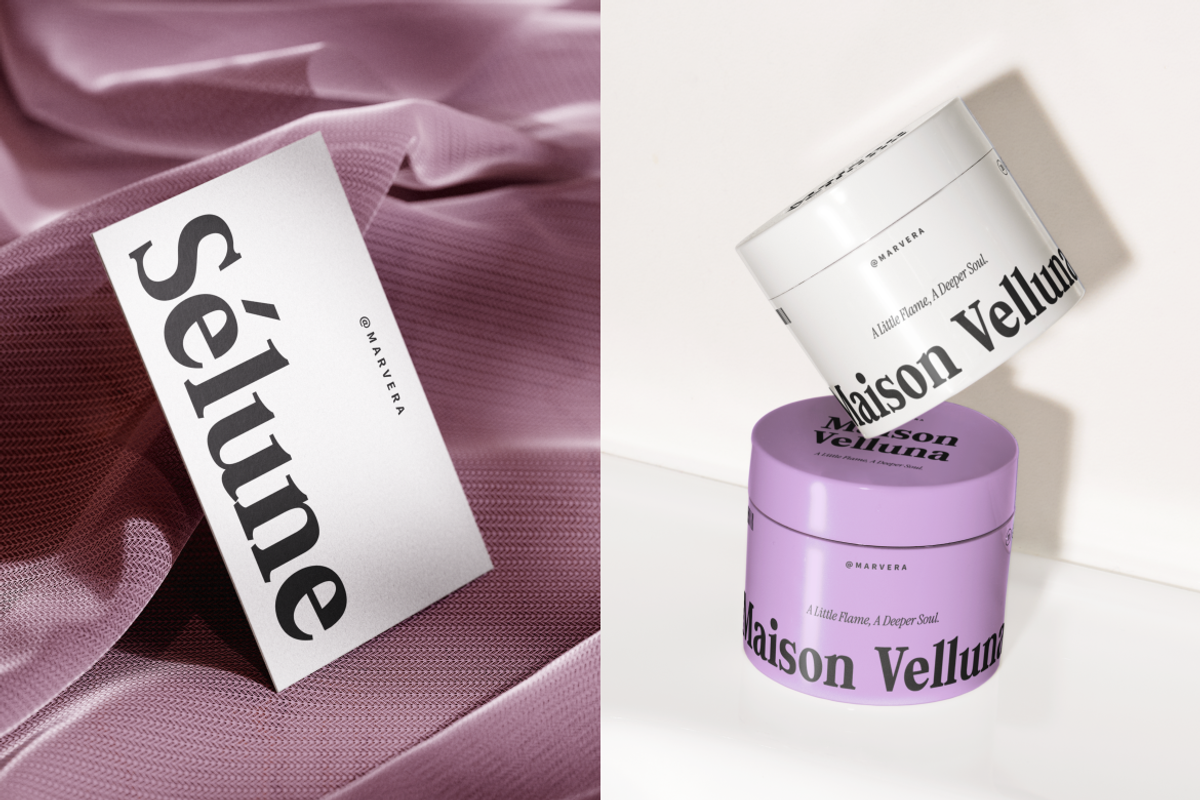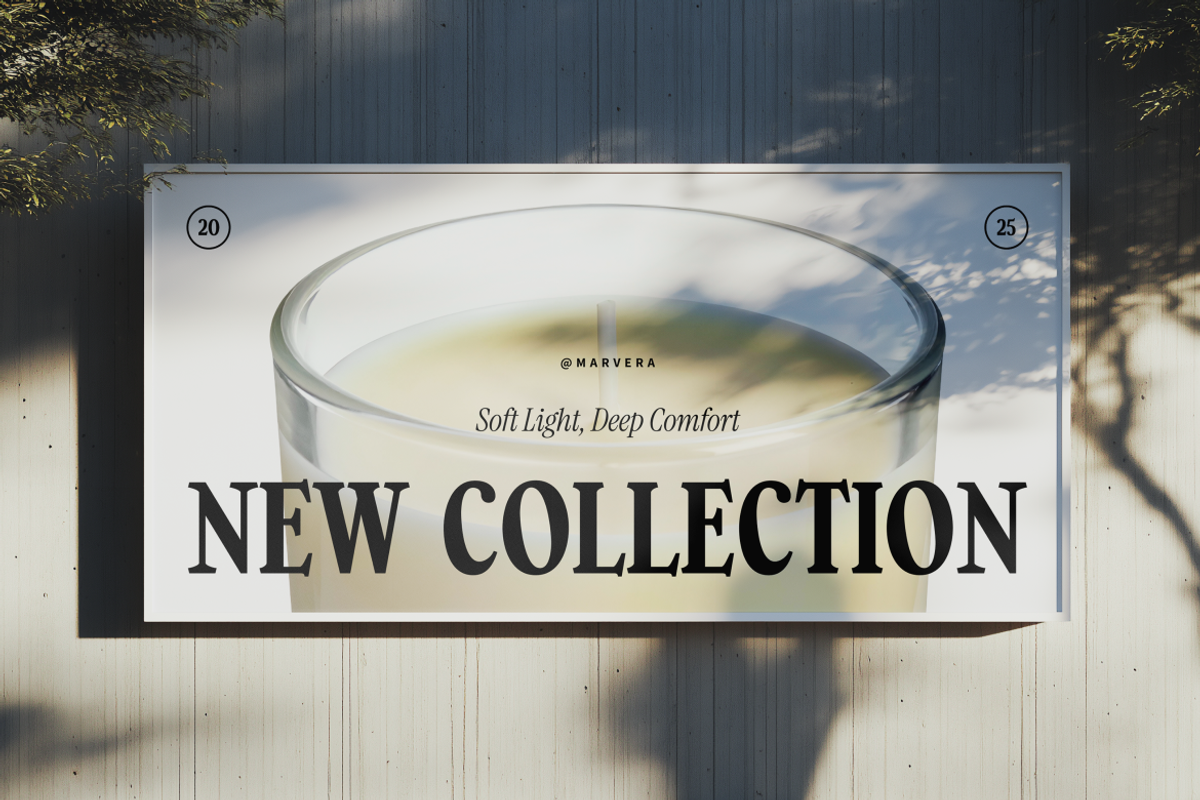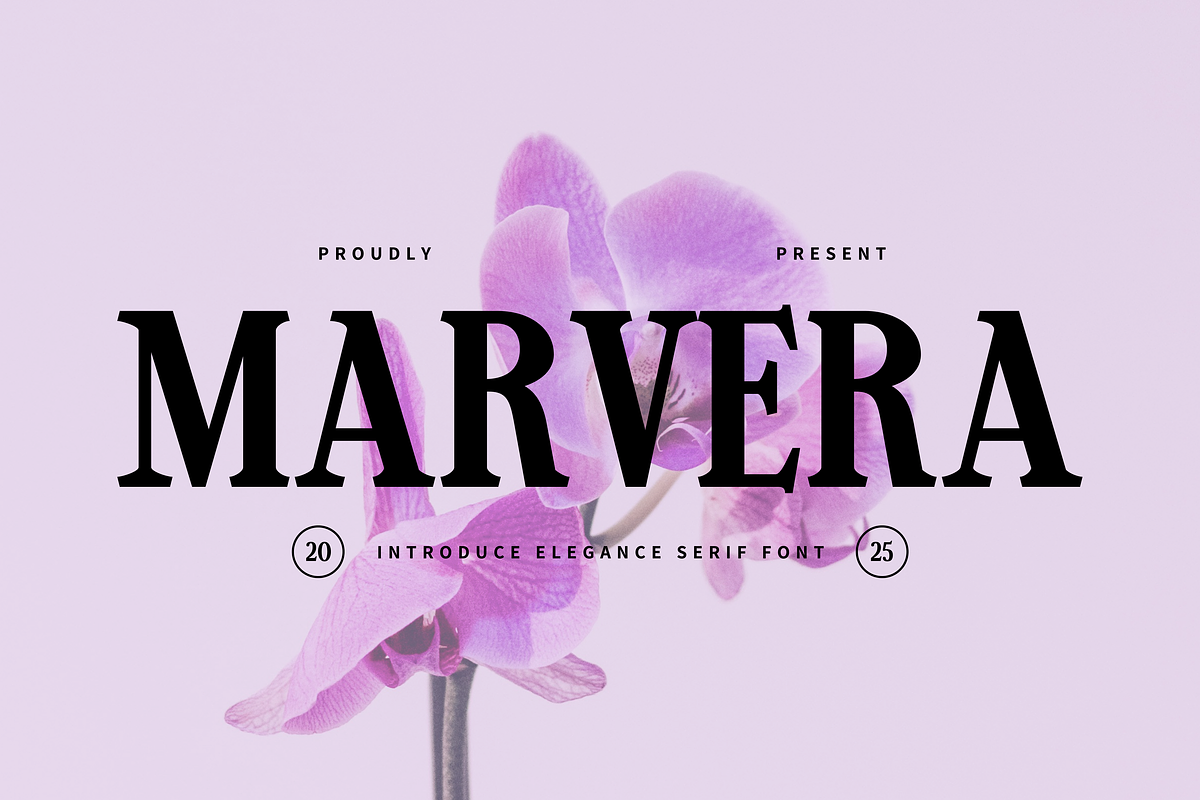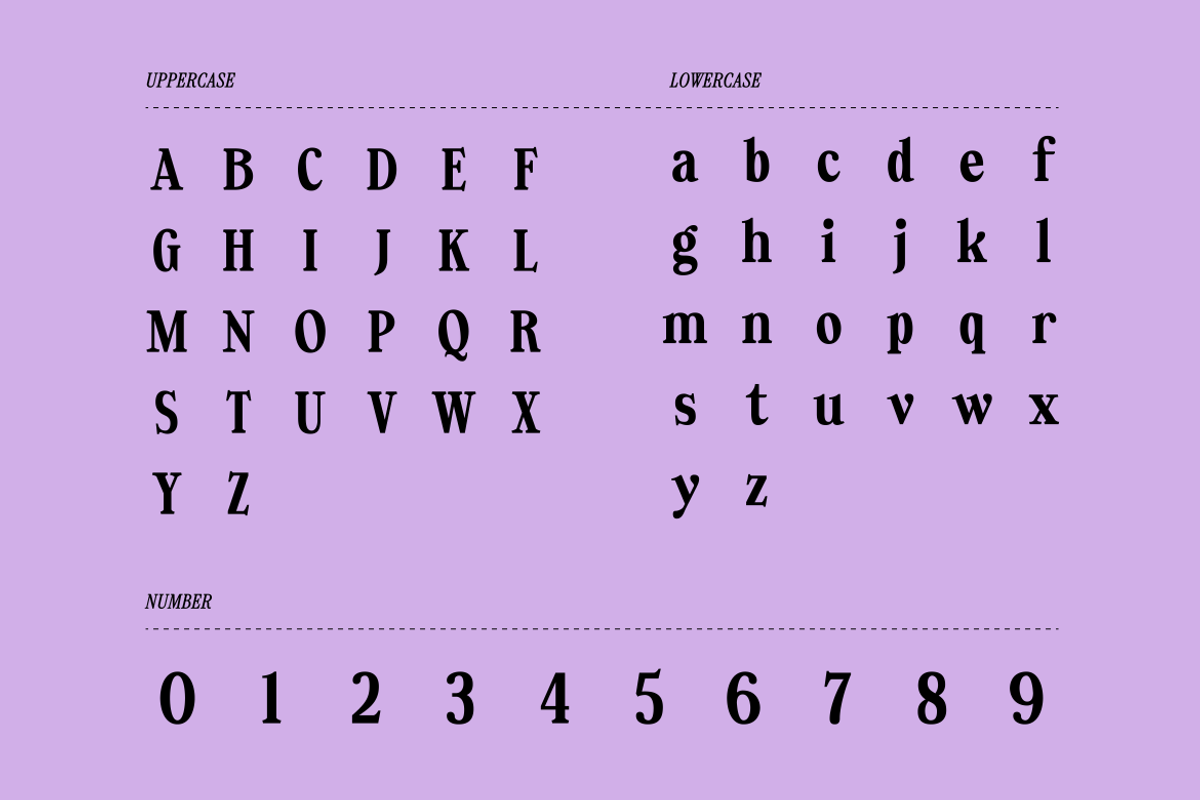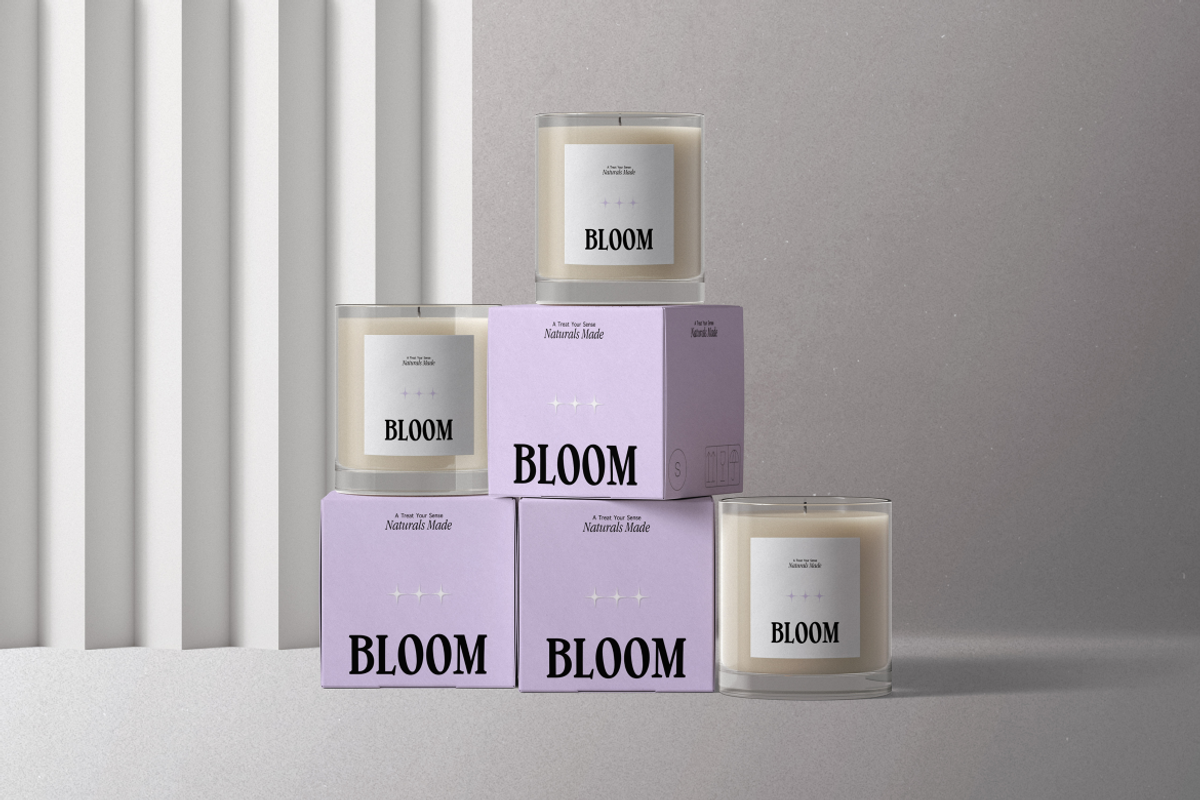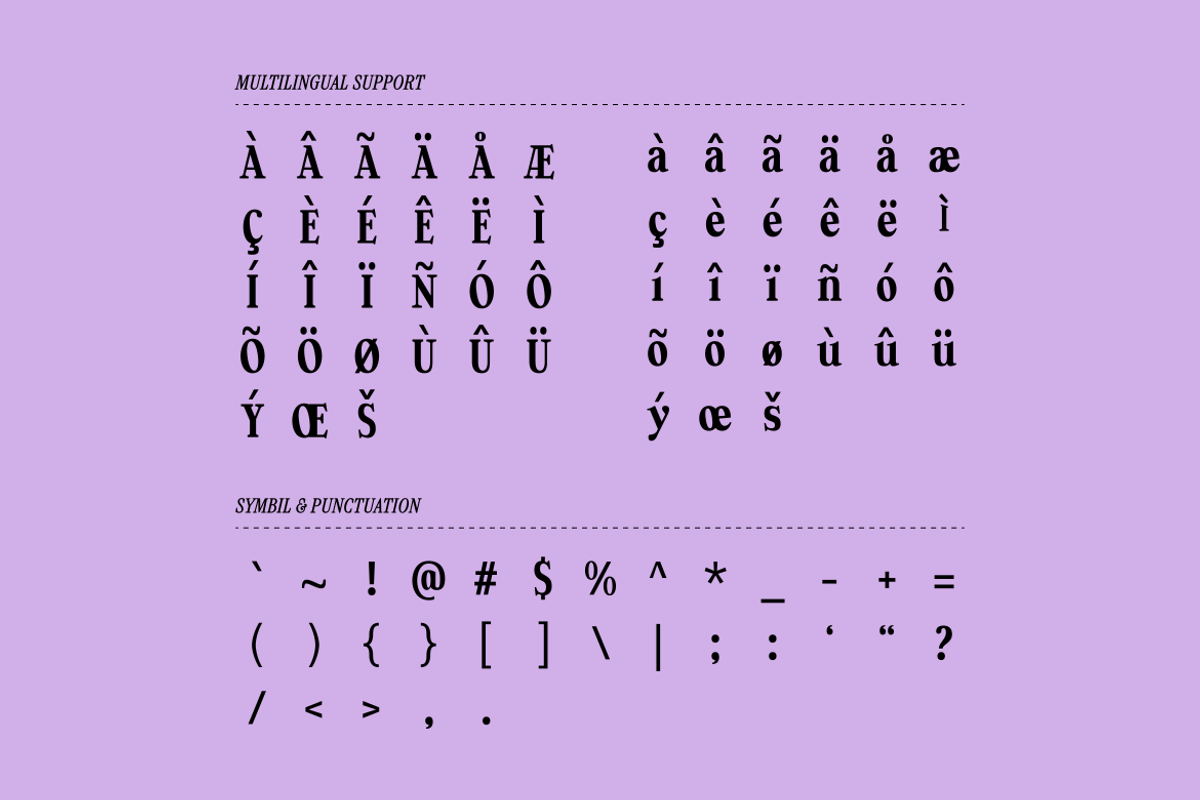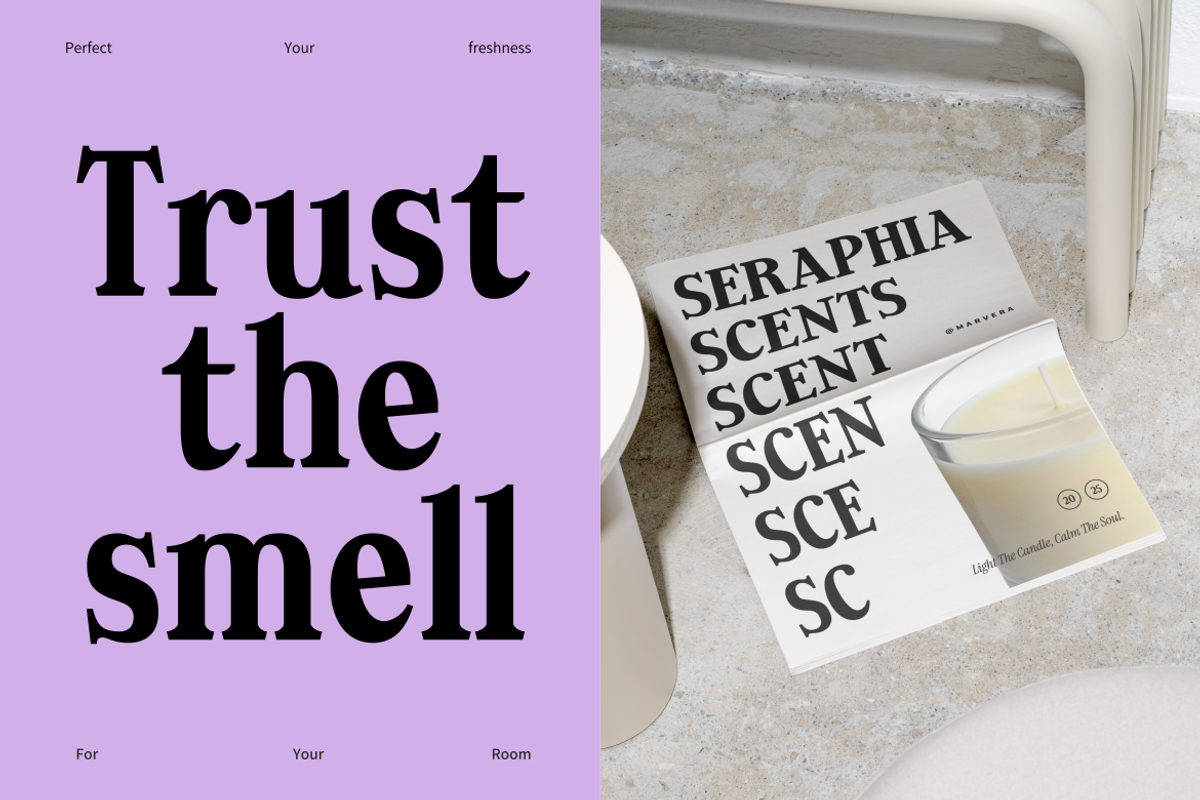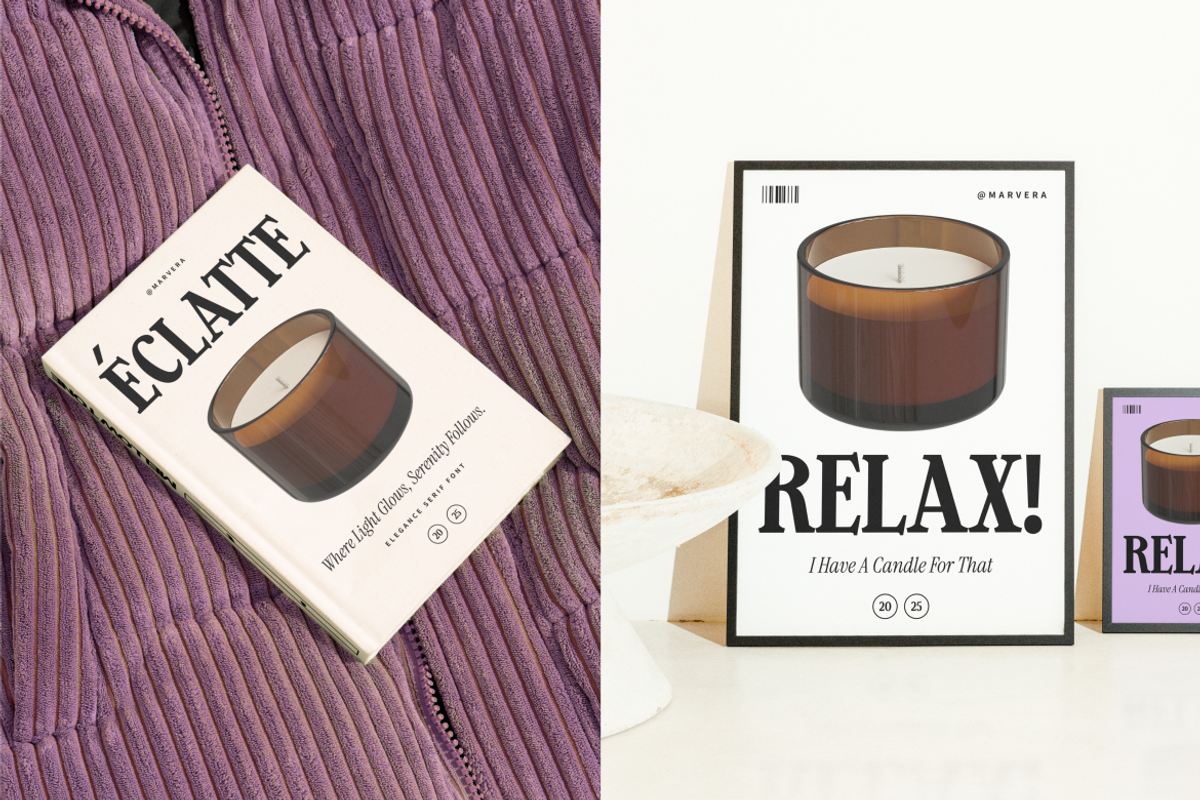
Marvera
Marvera is a bold display serif font with playful curves and vintage elegance, perfect for logos, branding, posters, headlines, packaging, editorials, and social media. Its strong character, clear readability, and modern retro charm help designs stand out, attract attention, and enhance visual impact in creative and commercial projects used worldwide.